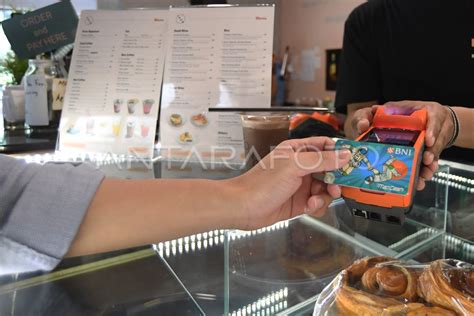
BNI Font: Easy Transaction Guide
Hey guys! Ever found yourself staring at your BNI mobile banking app, wondering which font is the best for your transaction needs? You’re not alone! Choosing the right font can seriously impact your user experience , making transactions smoother and less prone to errors. Let’s dive deep into the world of BNI fonts and figure out what works best for you. We’ll explore everything from readability to how these fonts actually influence your perception of the app. So, grab your coffee, and let’s get this sorted!
Understanding Font Basics for Transactions
Alright, so before we get all jazzed up about specific BNI fonts, let’s chat about what makes a font good for financial transactions, especially on a mobile app. When you’re dealing with numbers, account details, and transfer amounts, clarity is king , guys. You don’t want to be squinting at tiny numbers or mistaking a ‘1’ for a ‘7’, right? That’s where font design comes into play. We’re talking about things like legibility – how easily individual characters can be distinguished – and readability , which is how comfortable it is to read a block of text. For transaction screens, we want fonts that are super clear, have well-defined characters, and maintain that clarity even at smaller sizes. Think about fonts that have distinct shapes for similar-looking characters, like ‘0’ and ‘O’, or ‘1’ and ‘l’. This is crucial to prevent those costly mistakes. BNI, like most major banks, invests a lot in ensuring their app’s interface is user-friendly, and the font choice is a huge part of that. They usually opt for sans-serif fonts, which are generally considered cleaner and easier to read on screens than serif fonts (those little decorative strokes at the ends of letters). So, when you’re navigating your BNI app, notice how crisp and clear the numbers and text appear. That’s the power of a well-chosen font working behind the scenes to make your banking life a breeze. It’s not just about looking pretty; it’s about functional design that helps you manage your money effectively and securely.
What Fonts Does BNI Use?
So, what exactly are the fonts gracing your BNI mobile banking app? While BNI, like many large corporations, might use proprietary fonts or a mix of system fonts and custom ones, we can make some educated guesses based on common design practices for financial apps. Typically, BNI leans towards modern, clean, sans-serif fonts . These fonts are chosen for their excellent readability on digital screens, especially at various sizes. Think about fonts like Roboto, Open Sans, or Lato . These are popular choices in the tech and banking world because they offer a great balance of neutrality, clarity, and a friendly aesthetic. They have clear letterforms and spacing, which is super important when you’re looking at account balances, transaction histories, or inputting transfer details. You won’t find overly decorative or script-like fonts here, and that’s a good thing! The goal is efficiency and accuracy . While BNI might have its own specific font families for branding across all its platforms, the core principle remains the same: prioritizing legibility for financial data . If you’re curious, sometimes you can get a hint by inspecting the app’s code if you’re technically inclined, but for most of us, it’s about appreciating the end result. The clarity you experience when checking your balance or making a payment is a testament to thoughtful font selection. It ensures that every digit, every letter, is easily discernible, minimizing the chance of errors and making your banking experience as seamless as possible. It’s all about making complex financial information accessible and easy to digest at a glance.
Why Font Choice Matters for Your Transactions
Okay, guys, let’s talk about why the font used in your BNI transactions is actually a big deal. It’s not just about aesthetics; it’s about functionality and your peace of mind . Imagine trying to type in a large sum for a bill payment, and the numbers are cramped, or similar-looking digits blend together. That’s a recipe for a major headache, right? A clear, legible font minimizes the risk of errors . When the characters are well-defined and spaced appropriately, you’re far less likely to mistype a digit or misread an account number. This is especially critical in banking where a single wrong digit can have significant consequences. Think about it: you’re transferring money, and a ‘3’ looks like an ‘8’, or a ‘0’ looks like an ‘O’. Mistakes like these can lead to failed transactions, incorrect payments, or even security concerns. BNI invests in good font choices because they understand this. They want to ensure that when you’re performing a transaction, you can do so with confidence. Beyond just preventing errors, a good font also enhances the overall user experience . When information is easy to read, your interaction with the app feels smoother, faster, and less frustrating. You can quickly scan your transaction history, verify details, and complete tasks without feeling mentally taxed. This improves efficiency , allowing you to manage your finances on the go without a second thought. So, the next time you’re using the BNI app, take a moment to appreciate the clarity. That font isn’t just there to look nice; it’s working hard to make your financial life easier and more secure. It’s a subtle but powerful element in ensuring a positive and reliable banking experience for all users.
Tips for Easier BNI Transactions
The Future of Fonts in Banking Apps
Looking ahead, the future of fonts in banking apps like BNI’s is all about enhancing accessibility and personalization . We’re likely to see banks continuing to adopt even more sophisticated, highly legible sans-serif fonts, possibly with custom variations that align perfectly with their brand identity while prioritizing user clarity. Think about dynamic font sizing , where the app intelligently adjusts font sizes based on user preferences or even system accessibility settings, ensuring everyone can read their financial information comfortably. Variable fonts are also a hot trend, allowing a single font file to offer a wide range of weights, widths, and styles. This could enable banks to use typography more expressively while maintaining performance and legibility. Furthermore, expect increased integration with operating system accessibility features . This means apps will better respect your device’s text size settings, high-contrast modes, and other aids, making them usable for a broader audience. AI might even play a role , perhaps suggesting optimal font settings based on user behavior or even identifying potential readability issues in real-time. The goal is to make banking not just secure and functional, but also inclusive and effortless for every single user. So, while BNI’s current font choices are excellent, the journey towards even better typography in financial apps is definitely ongoing, promising an even smoother and more accessible banking future for all of us guys. It’s an exciting time to see how technology continues to evolve to serve our daily needs better.
Conclusion
So there you have it, guys! We’ve journeyed through the importance of fonts in BNI transactions, from the basics of legibility to the future possibilities. The font choice in your BNI app is a critical element that ensures clarity, reduces errors, and enhances your overall user experience. While BNI likely uses clean, modern sans-serif fonts optimized for digital screens, remembering to double-check your details, utilize app features, and keep your app updated are key habits for smooth transactions. The future looks bright, with more focus on accessibility and personalization. Keep an eye out for how banking apps continue to evolve! Happy banking!